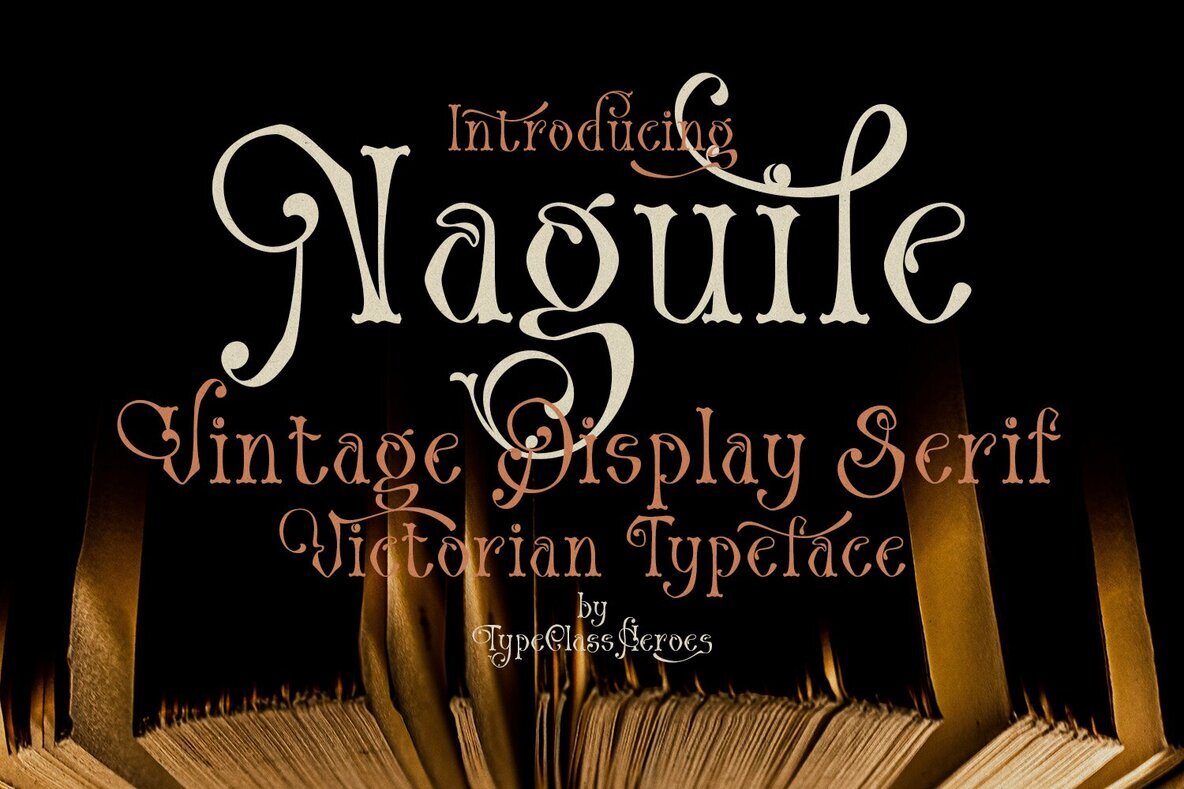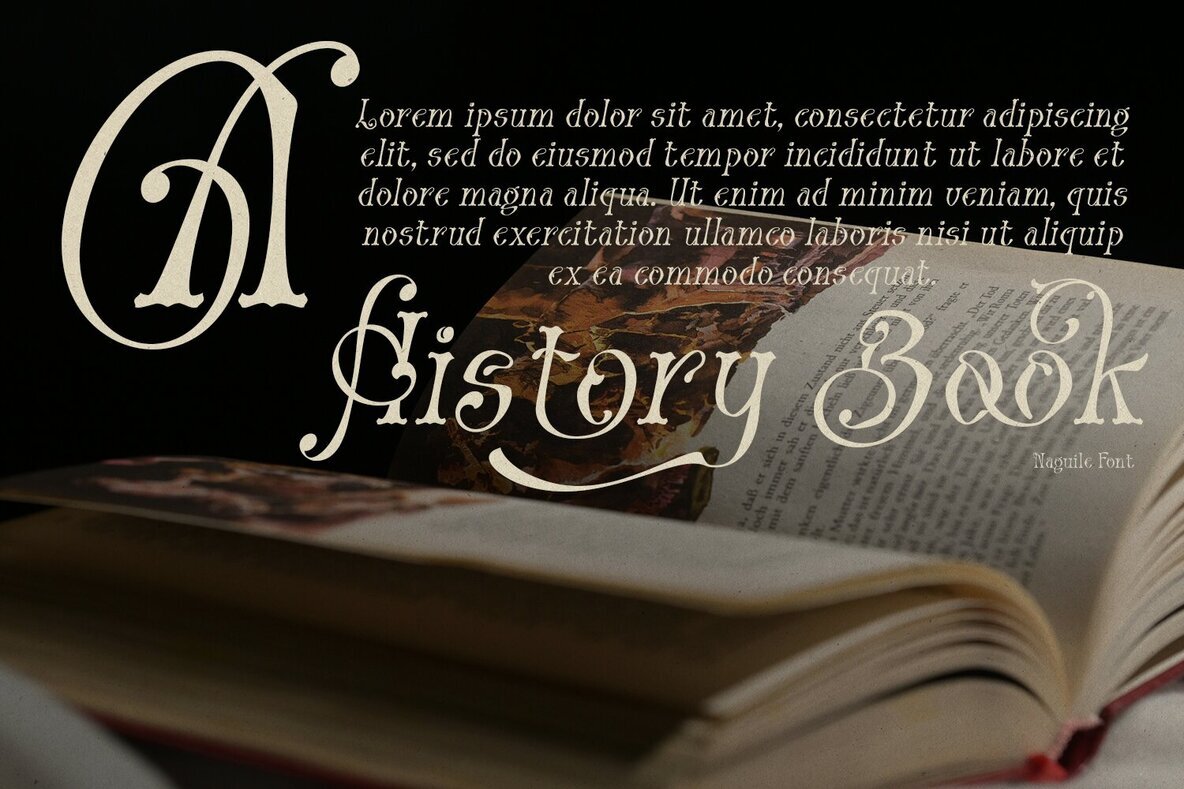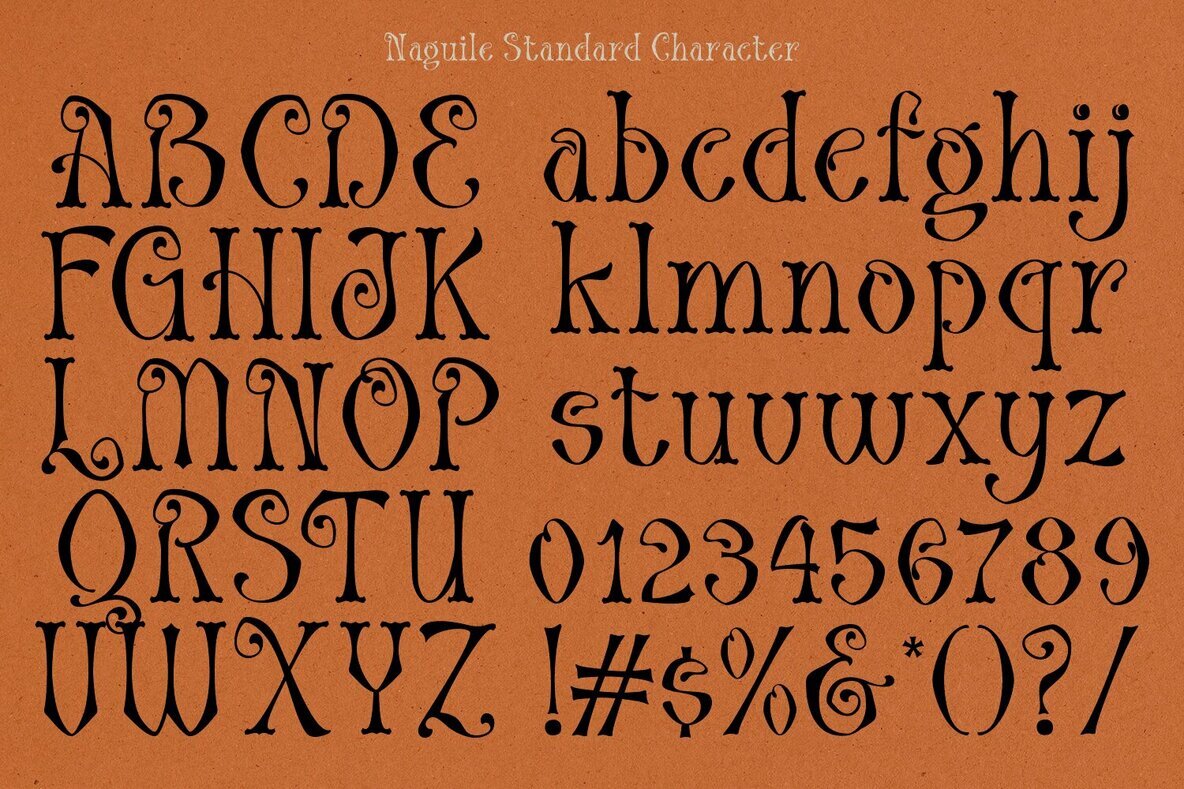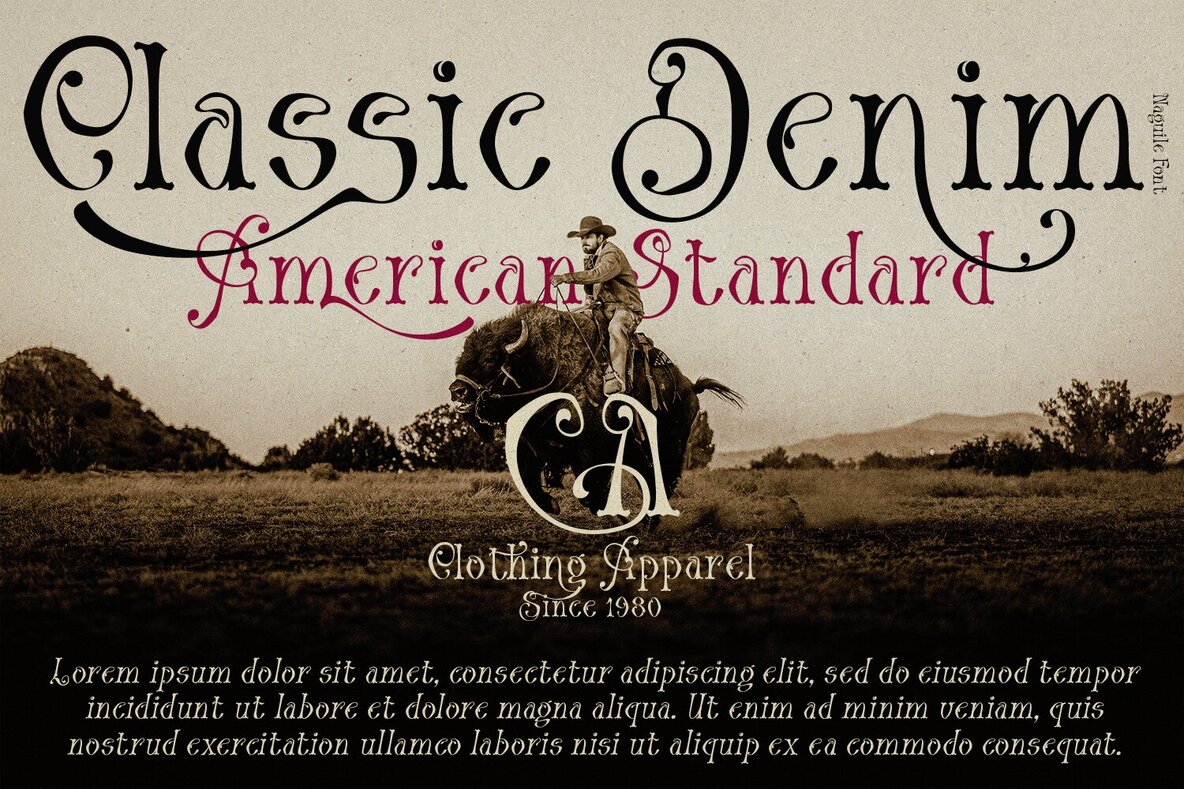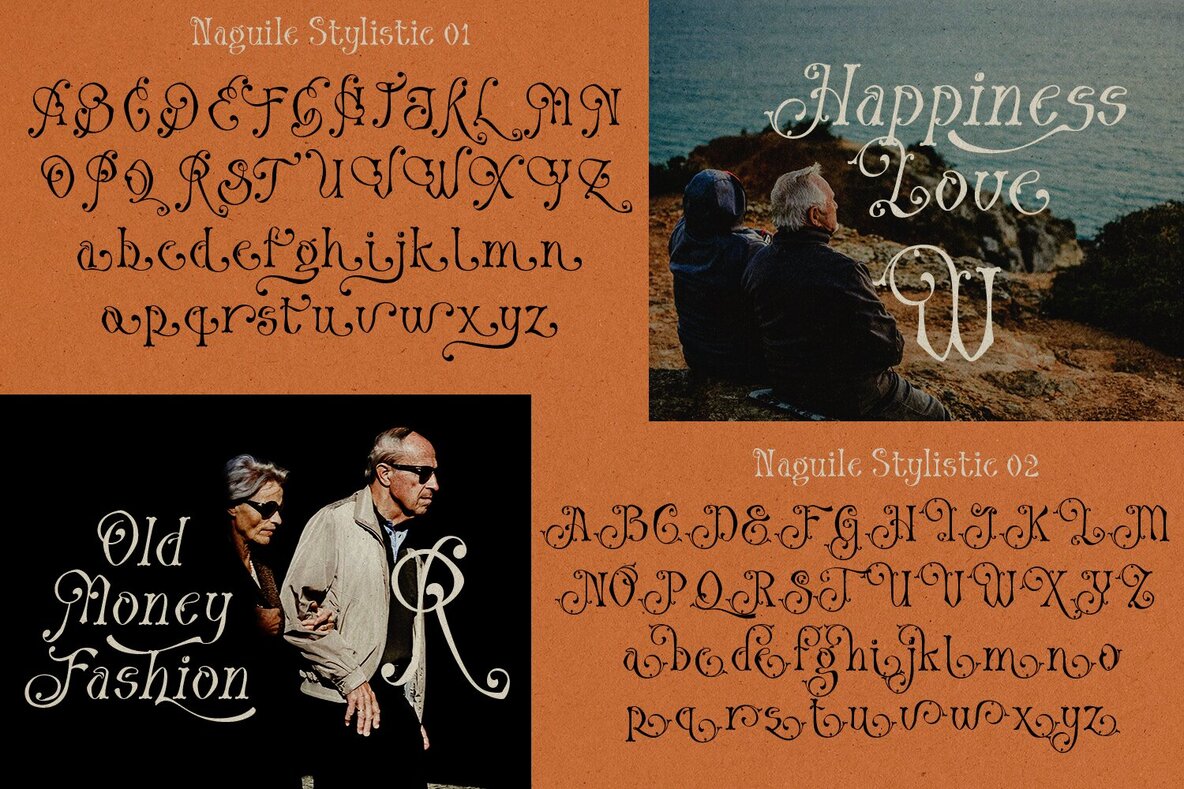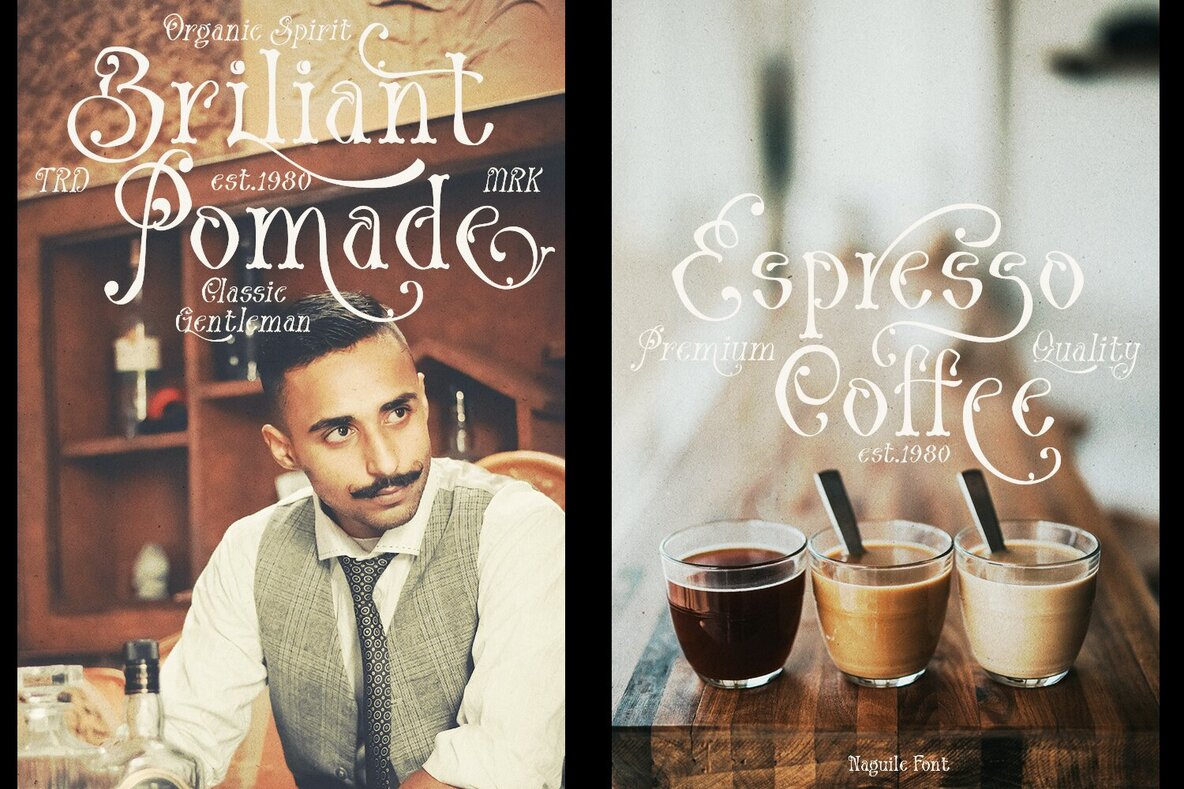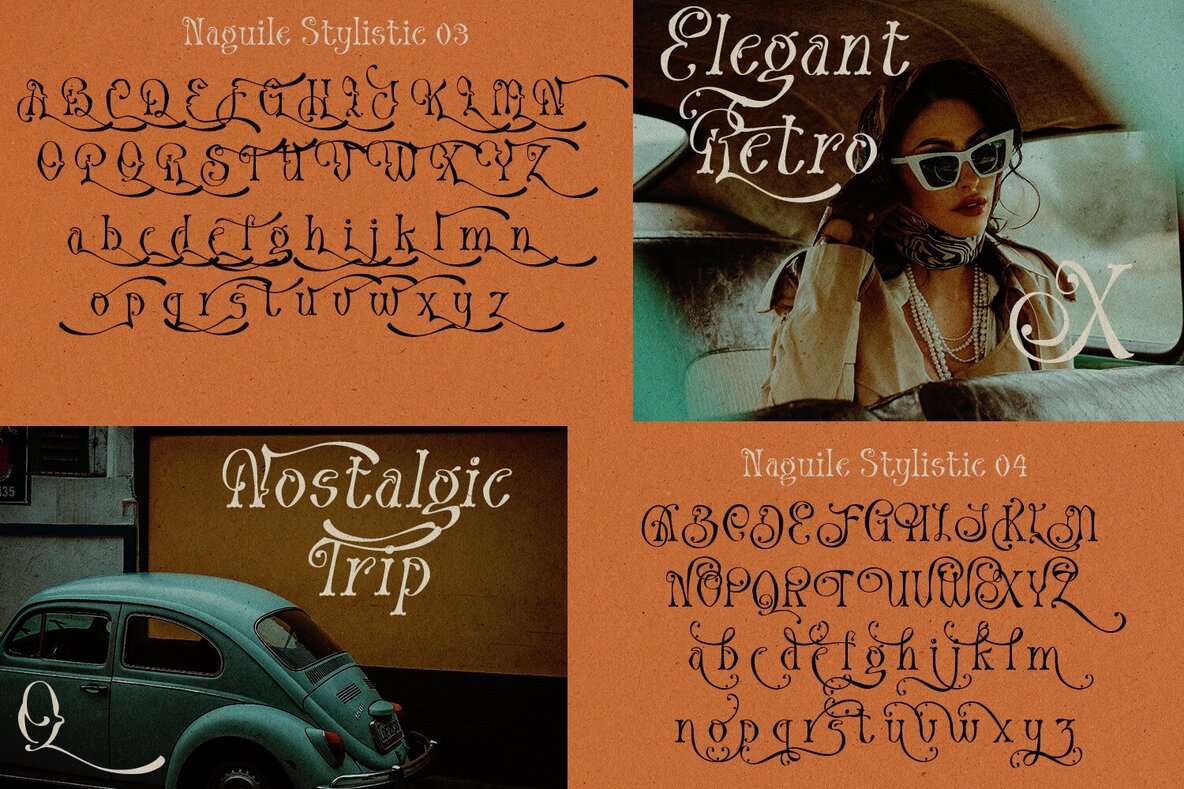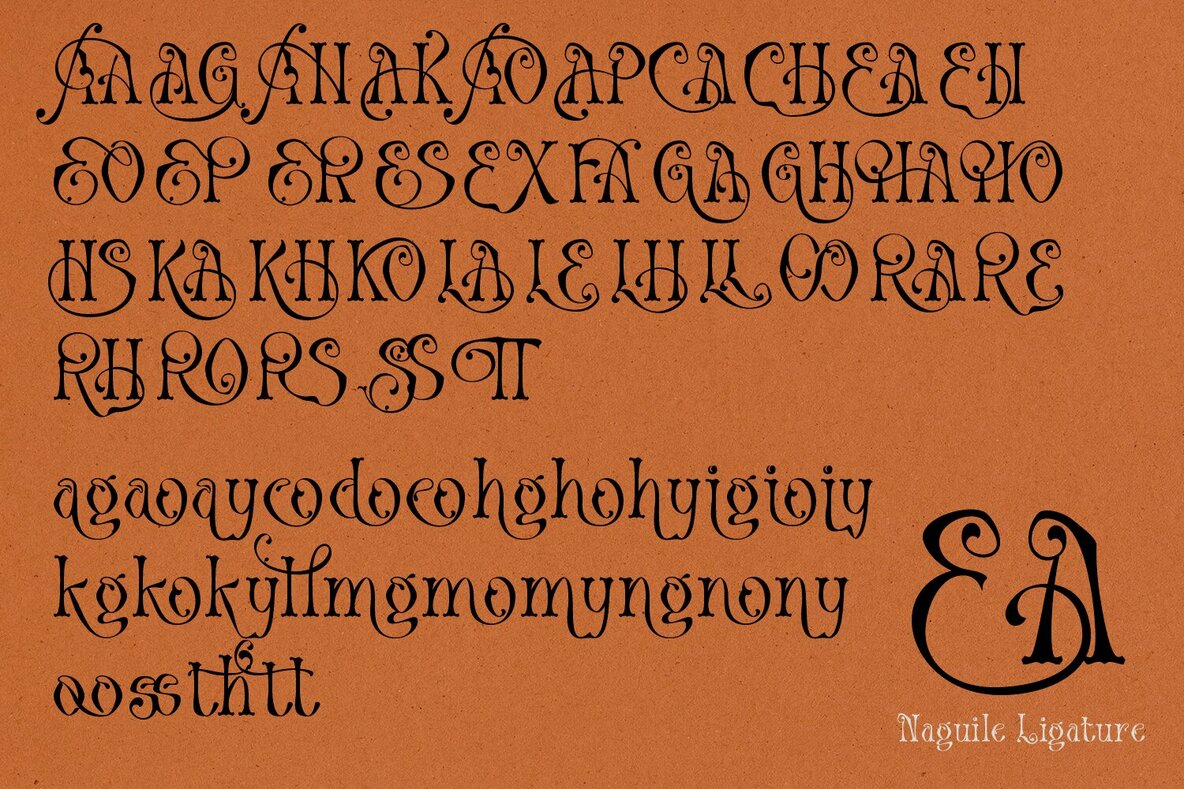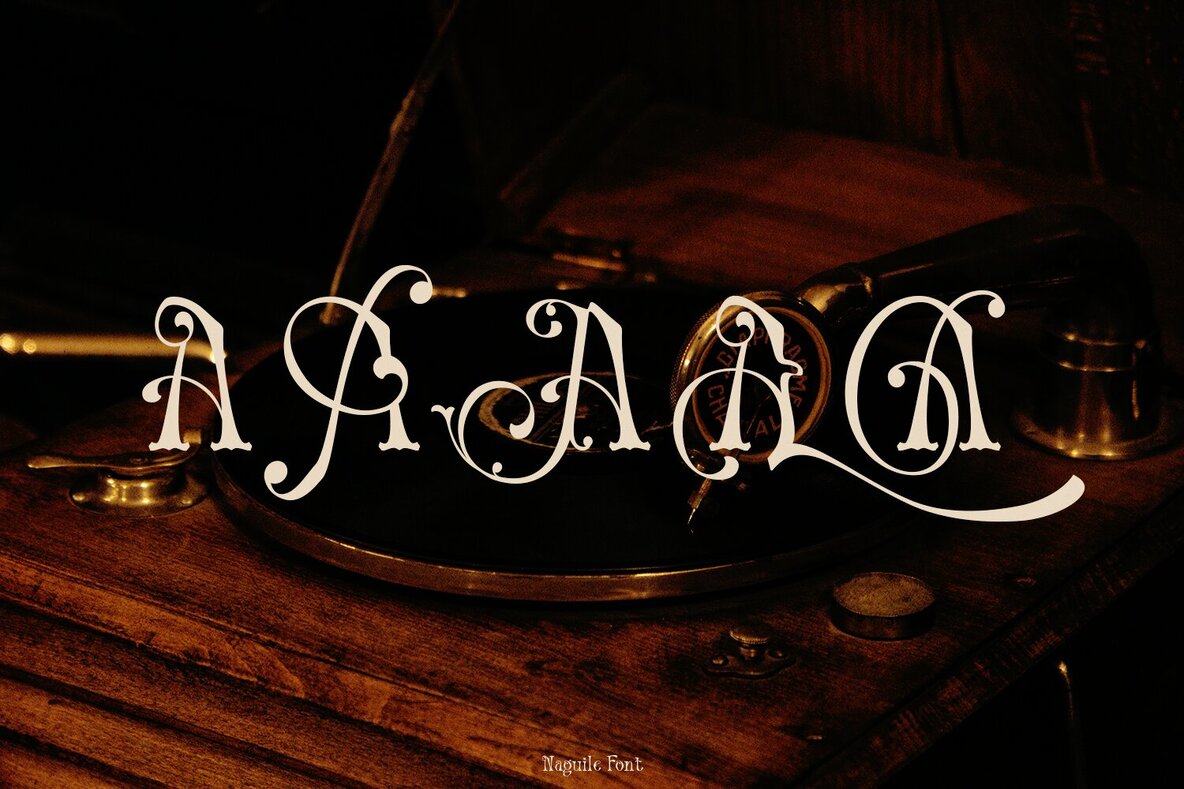
Naguile Font
Naguile combines an elegant touch with classic 19th-century typography, offering a true vintage display font experience. Drawing inspiration from antique lettering, vintage illustrations, and Victorian calligraphy, Naguile delivers a unique charm that enhances any design. Perfect for design projects with a vintage and classic style, this font is ideal for a variety of display purposes such as book covers, product labels, logo badges, drink bottles, and tattoo shops. Its versatility also extends to coffee shops, fashion products, and wedding invitations, adding an element of elegance and luxury to each creation.Naguile Vintage Display Font